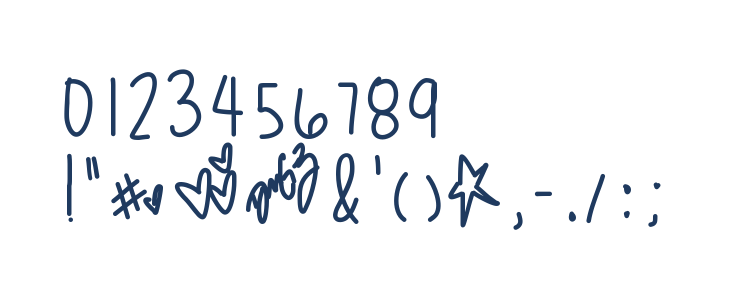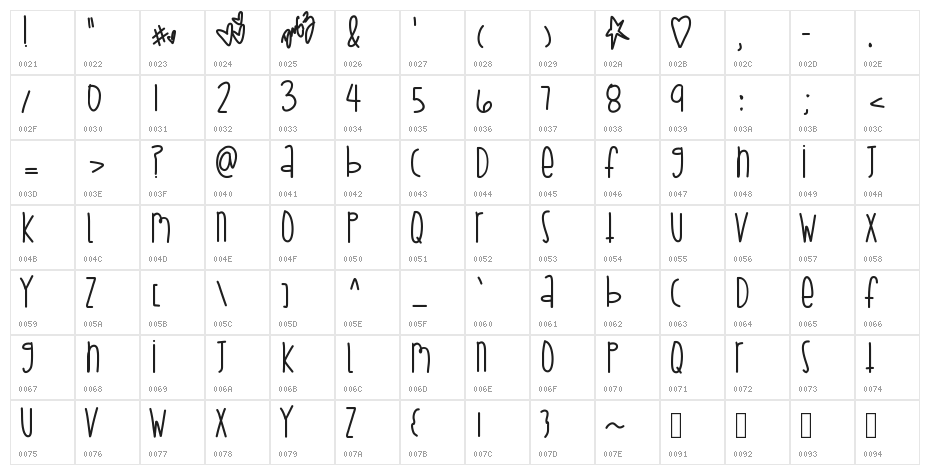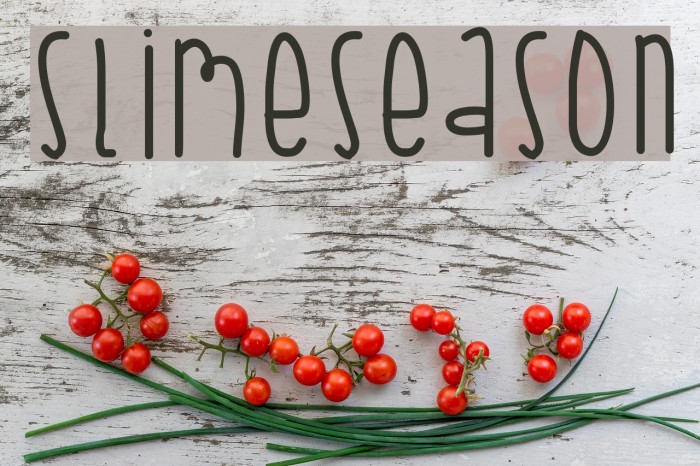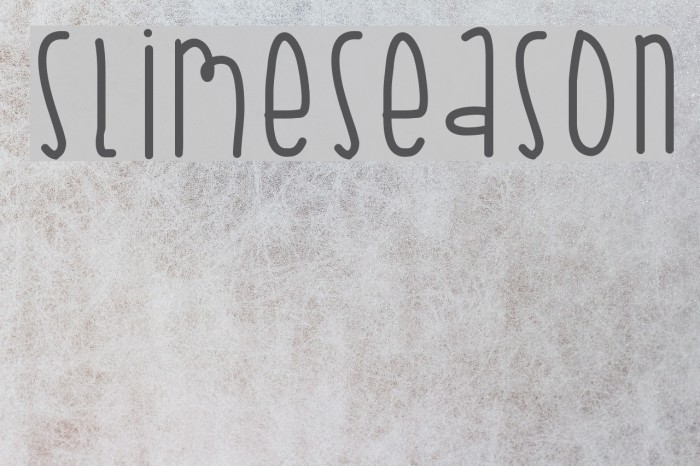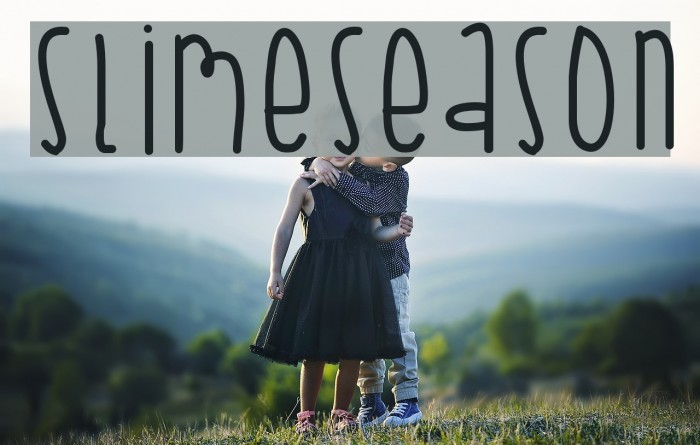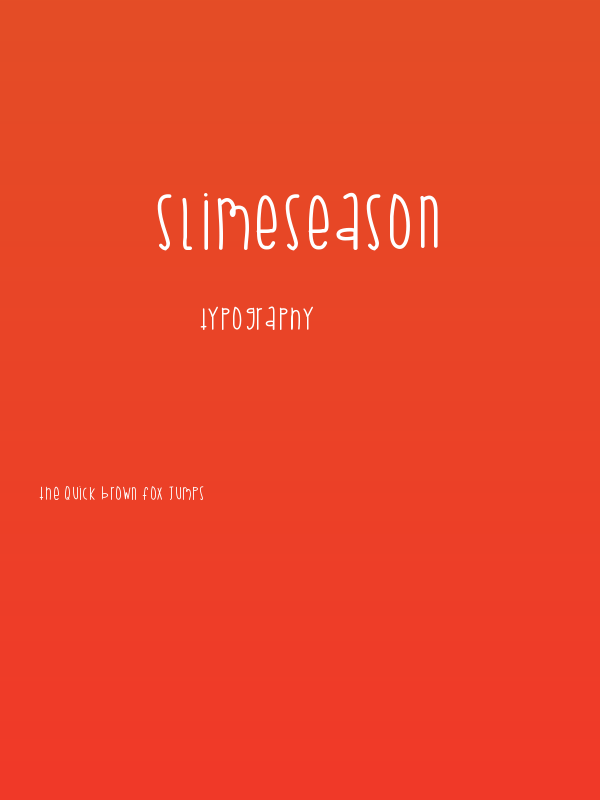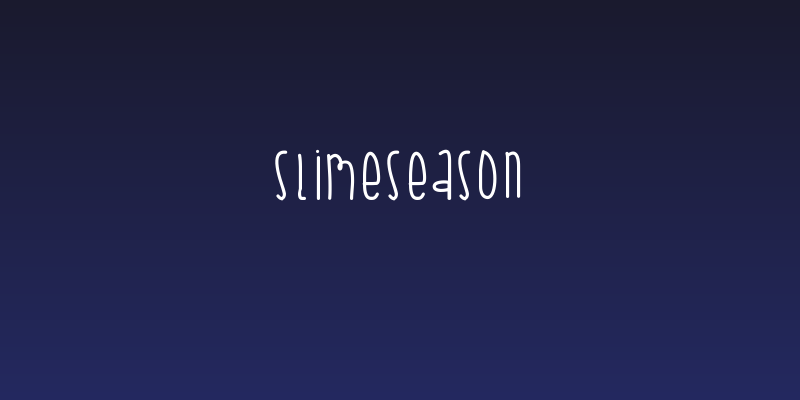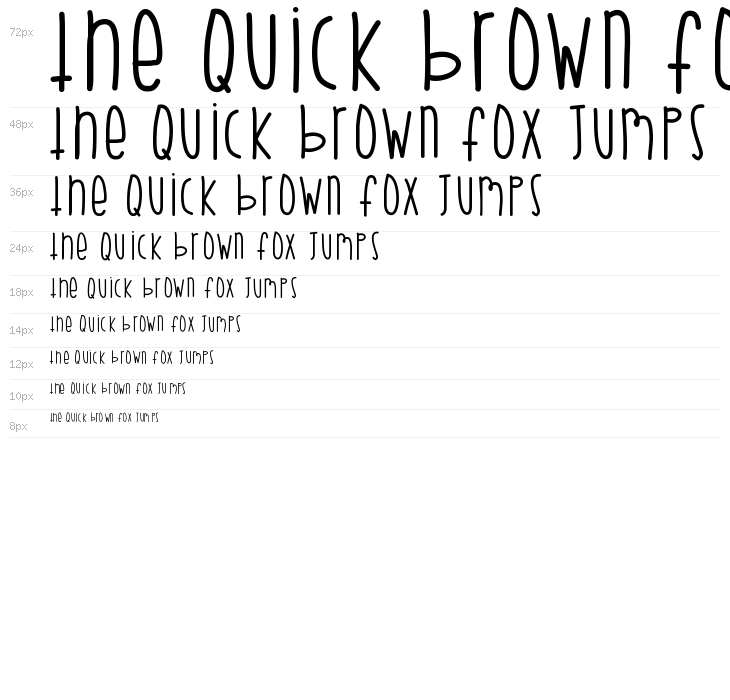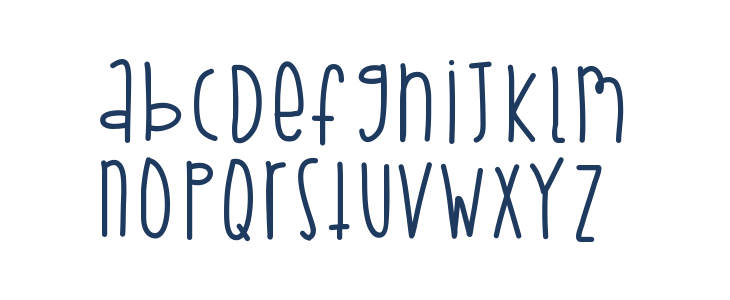
SlimeSeason Font
SlimeSeason Description
This playful and whimsical font features tall, narrow letters with a hand-drawn aesthetic. The characters have a consistent stroke width, giving them a clean and modern look. The uppercase and lowercase letters maintain a uniform height, contributing to a cohesive appearance. The numbers and special characters are designed with the same playful style, making them perfect for creative projects. The font's unique charm is enhanced by its slightly irregular lines, adding a touch of personality and warmth.